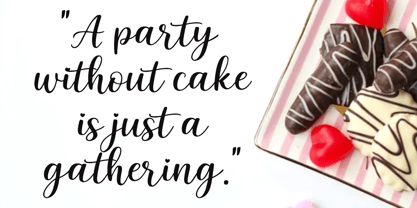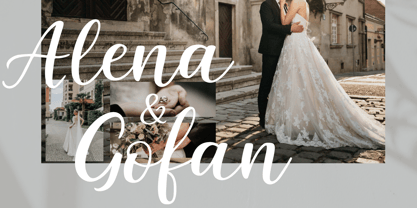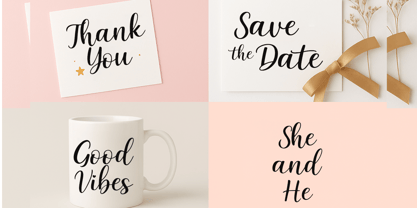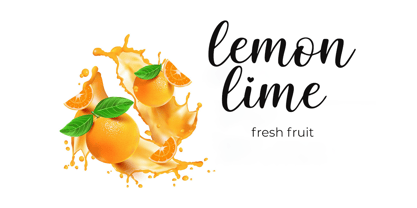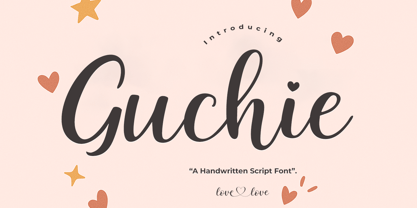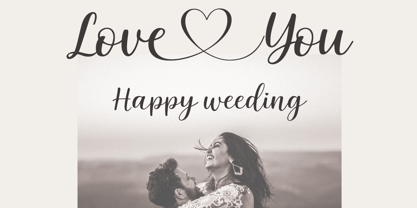
Guchie
by Cocodesign
The Guchie Font Family was designed by Muhammad Zaini and published by Cocodesign. Guchie contains 1 styles. More about this family
Guchie – Playful Elegant Script Font
Guchie is a modern script font that perfectly blends elegance with a playful touch. Its smooth strokes and flowing curves create a stylish yet approachable appearance, making it highly versatile for both formal and casual designs. The dynamic letterforms are crafted to deliver a natural handwritten feel while maintaining a polished and professional look.
This font is ideal for projects that require a balance of sophistication and creativity. Use it for wedding invitations, branding, logos, packaging, greeting cards, social media posts, or any design that needs a chic and friendly personality. Guchie adapts beautifully to both large display titles and smaller text applications, ensuring legibility without losing its charm.
With its graceful flow and contemporary character, Guchie is designed to add warmth, elegance, and a touch of playfulness to every project. It’s more than just a script font—it’s a versatile design tool for bringing ideas to life in a stylish and engaging way.
Designers: Muhammad Zaini
Foundry: Cocodesign
About Cocodesign